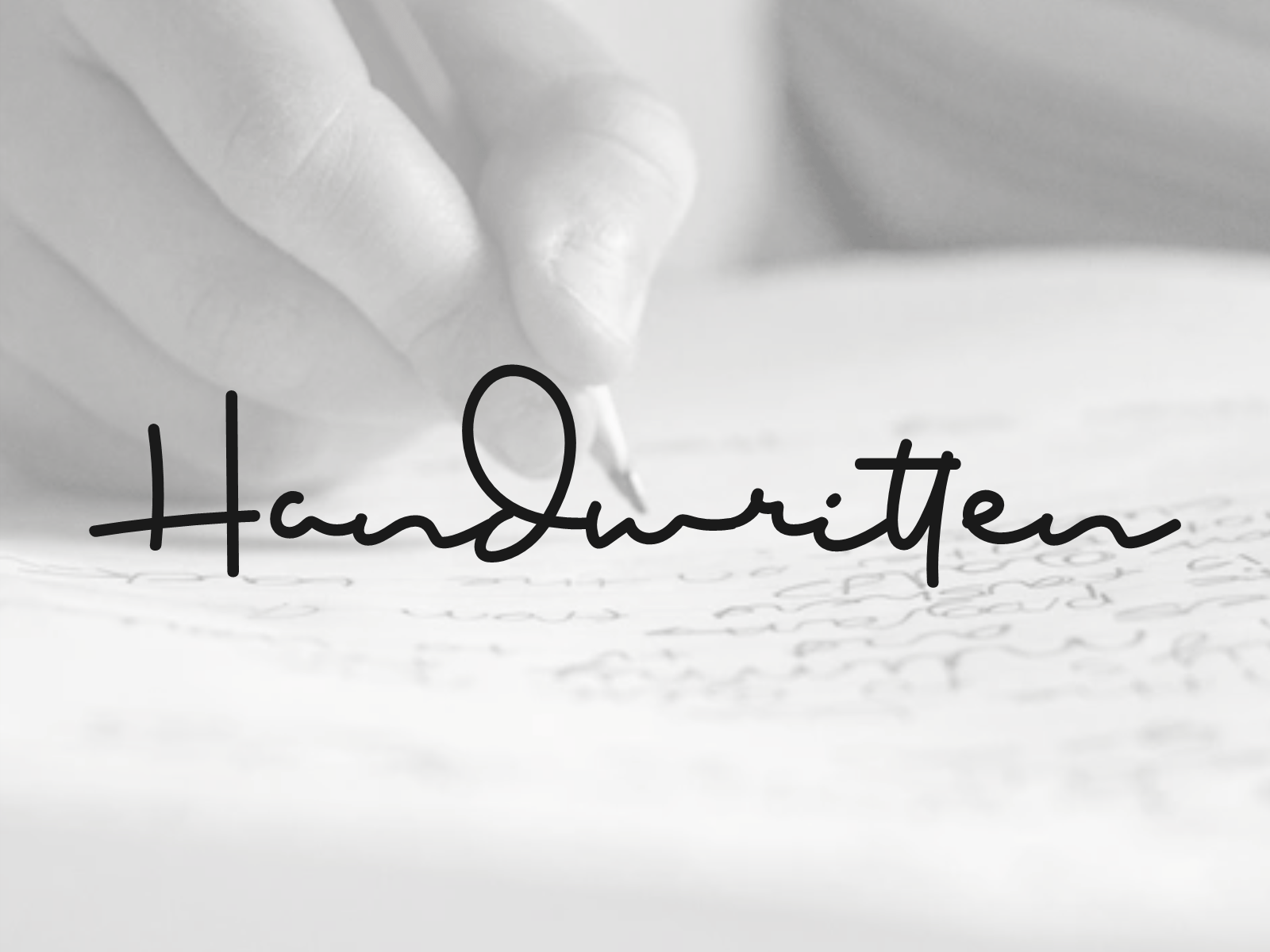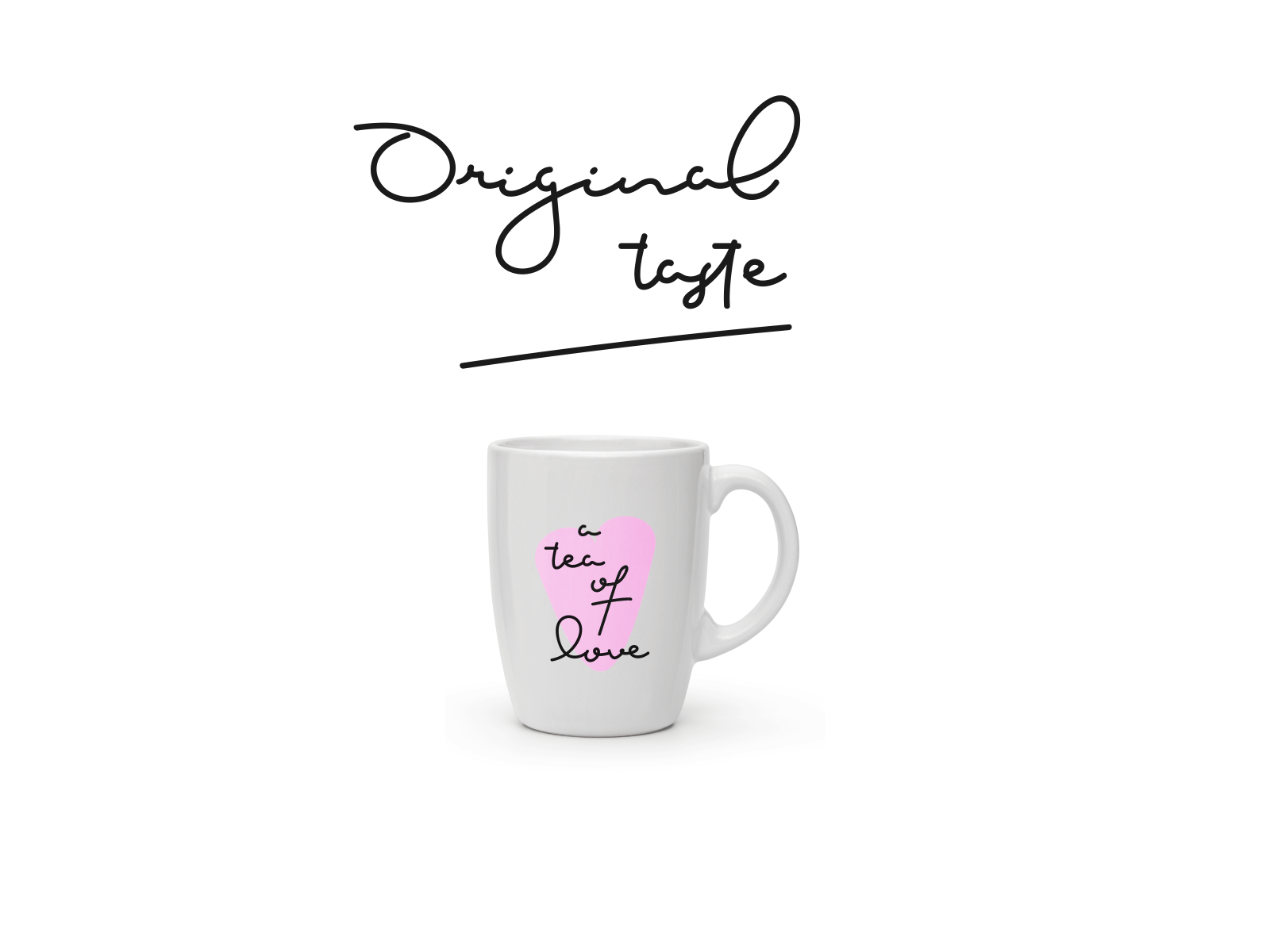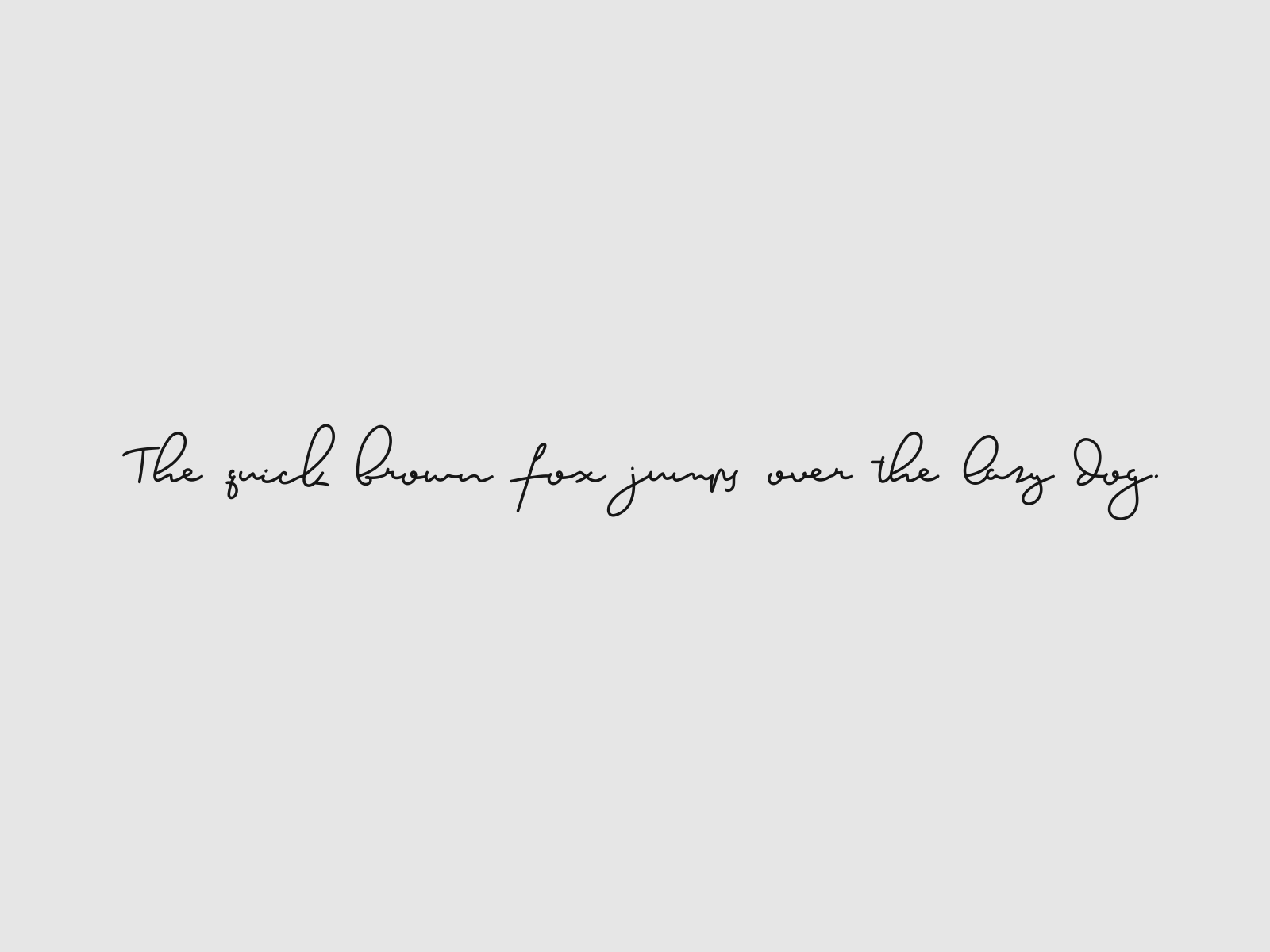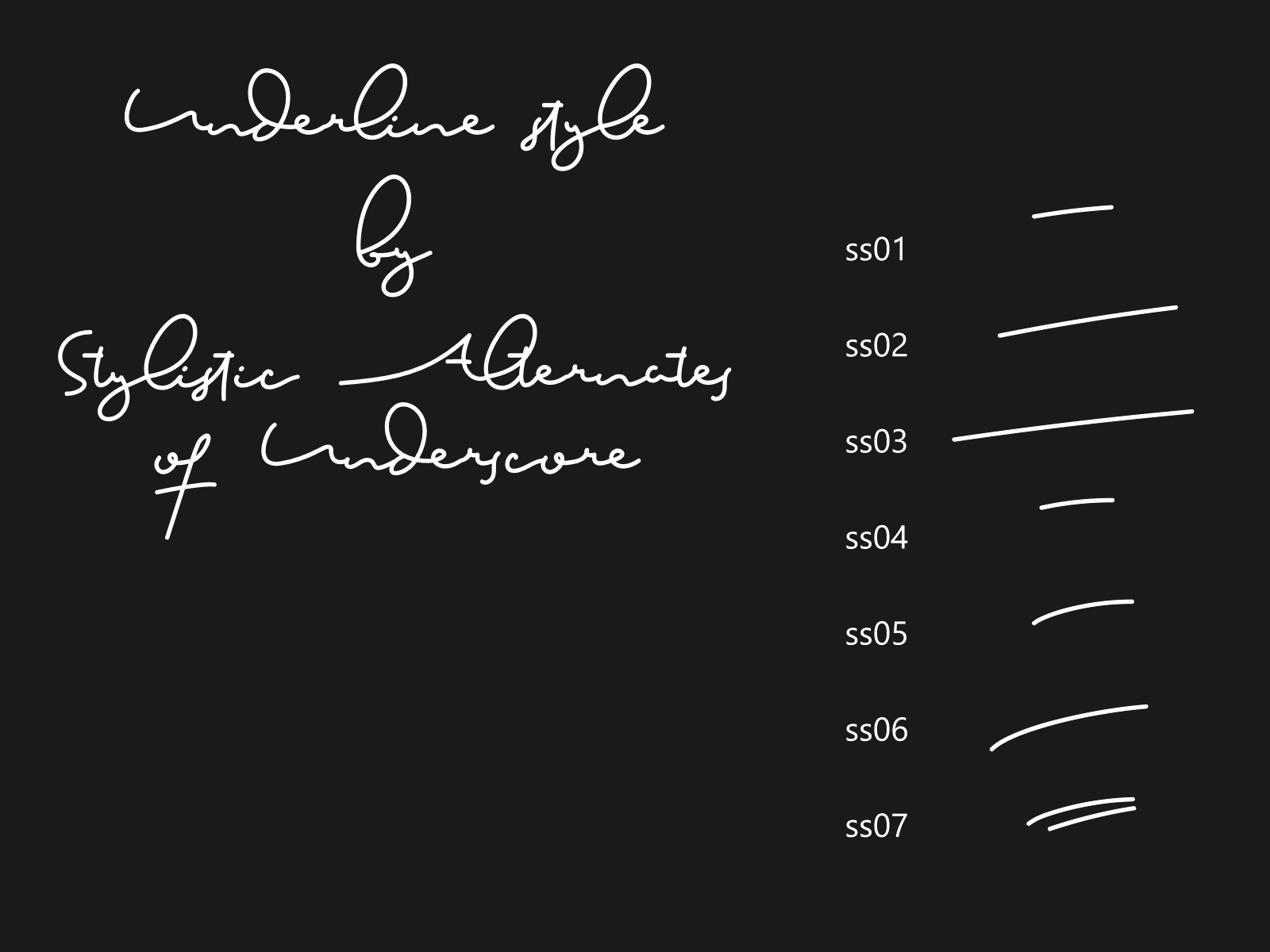
Prof. Bens Handwritten Font
This is a stylish, refined script font that exudes wisdom and professionalism. Its fashionable alternatives and ligatures make this font a perfect fit for each of your projects. Prof. Bens is PUA encoded which means you can access all of the glyphs and swashes with ease!